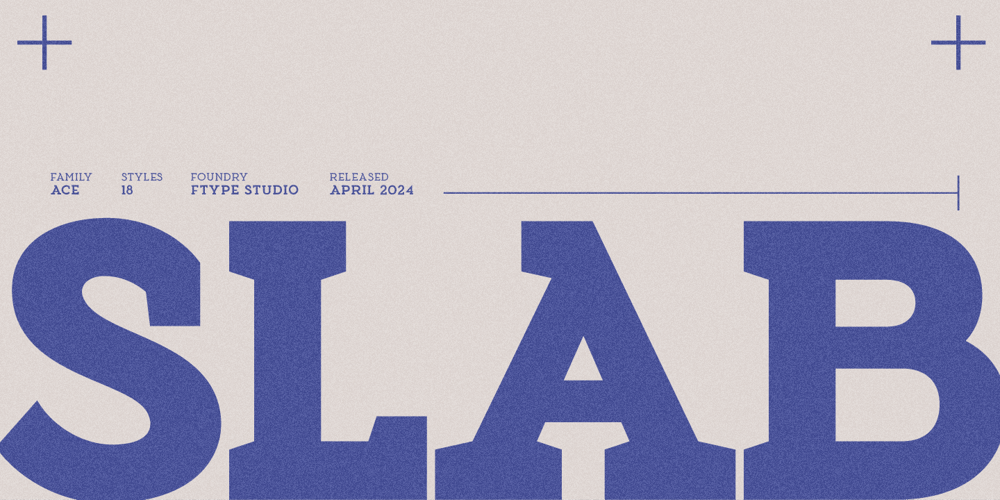
Ace Slab Font Family was designed by Wahyu Rahmawan and published by Factory738. Ace Slab contains 18 styles and family package options. Meet Ace Slab Font Family – the ultimate in modern versatility with 18 unique styles! This font family combines a contemporary, laid-back vibe with a strong, geometric slab serif design for that extra edge. Ace Slab brings you clean, bold letters, offering endless creative possibilities. It’s your go-to choice for enhancing headlines, revitalizing your branding, or adding a touch of style to posters, logos, and magazines – you name it! Plus, it’s not just any font – it comes with the flexibility of variable font magic and multilingual support. Time to give your text a stylish and powerful makeover!#AceSans #AceSlab #ChillFonts #DesignSwag #geometricThanks for looking, and I hope you enjoy it.